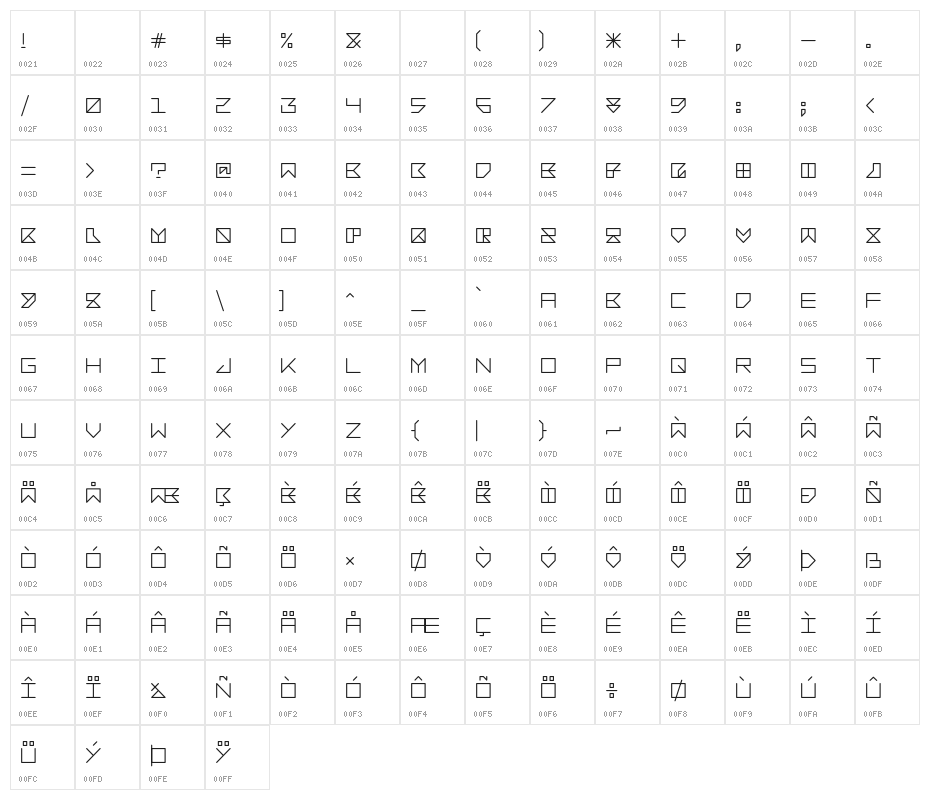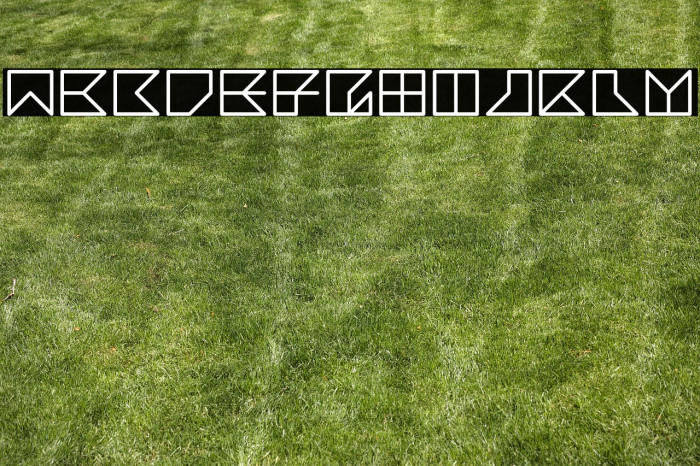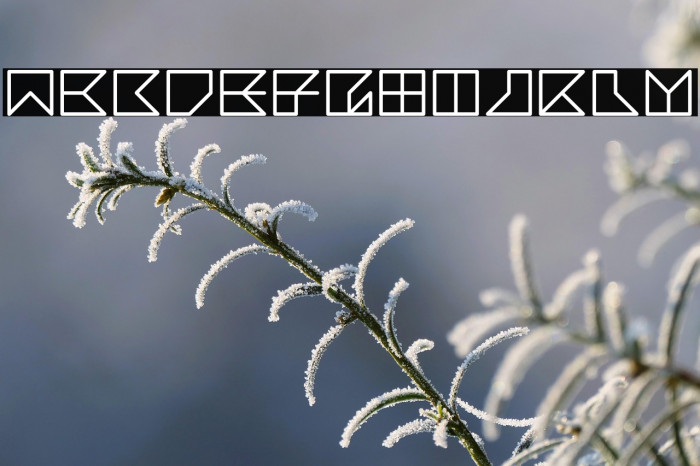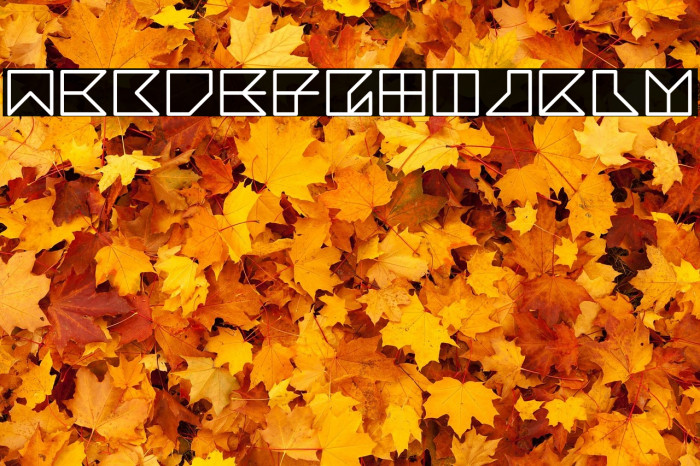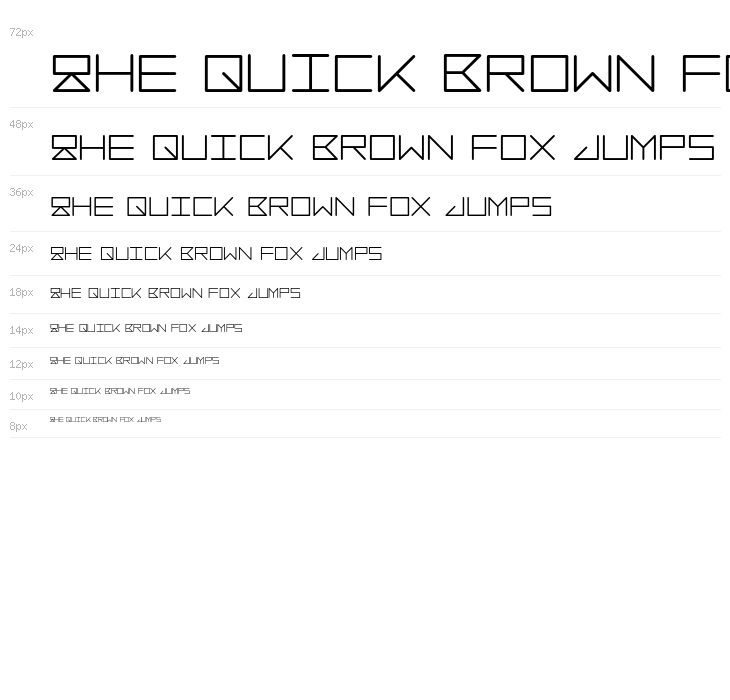
Bacotu Font
Bacotu Description
This font features a geometric and angular design, characterized by sharp edges and a futuristic aesthetic. The uppercase letters are constructed with bold, straight lines and unique shapes that give each character a distinct appearance. The lowercase letters maintain the same angular style, providing consistency throughout the typeface. Numbers and special characters are designed with the same geometric precision, making them stand out with their modern and edgy look. The overall style is reminiscent of digital or sci-fi themes, making it suitable for projects that require a contemporary and innovative touch.
| Proposed Projects | Ideal for sci-fi themed projects, digital artwork, modern branding, and tech-related designs. |